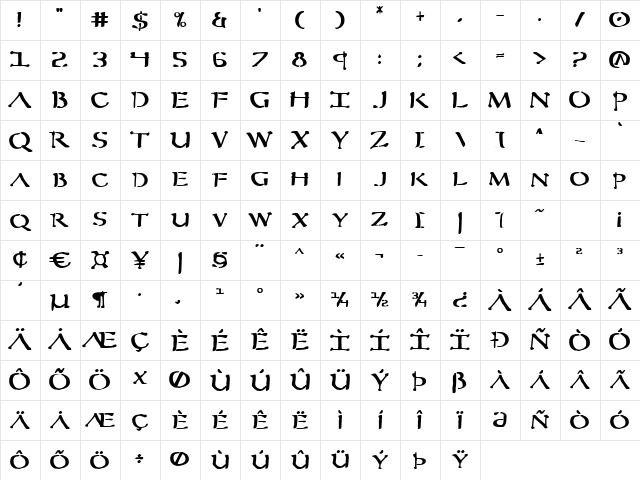
Sever Bold
Sever Family
Sever Bold
Design Context for Sever
Sever is a composed and adaptable typeface that performs quietly and consistently across a wide range of design contexts. Its bold stroke weight gives it real presence on the page.